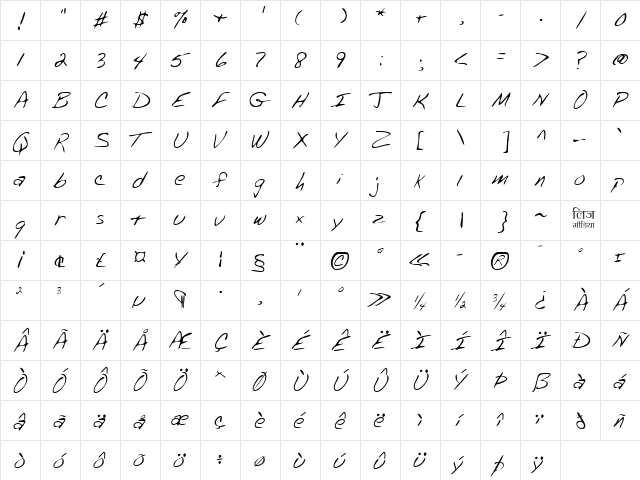
LEHN072 Regular
Design Context for LEHN072 Typeface
LEHN072 is a composed and adaptable typeface that performs quietly and consistently across a wide range of design contexts.